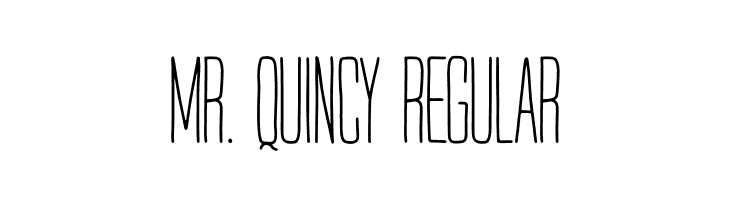
( If you are looking for a handwritten typeface that can perfectly use in all yourvaluable designs then pick Mr. Quincy font. This is a handcrafted typeface that comes with extended features and a huge stylish character set that are very suitable for any ty )
A tall, slender, and monolinear font with a modern and minimalistic style.
A playful, hand-drawn font with tall, narrow characters and a whimsical style.